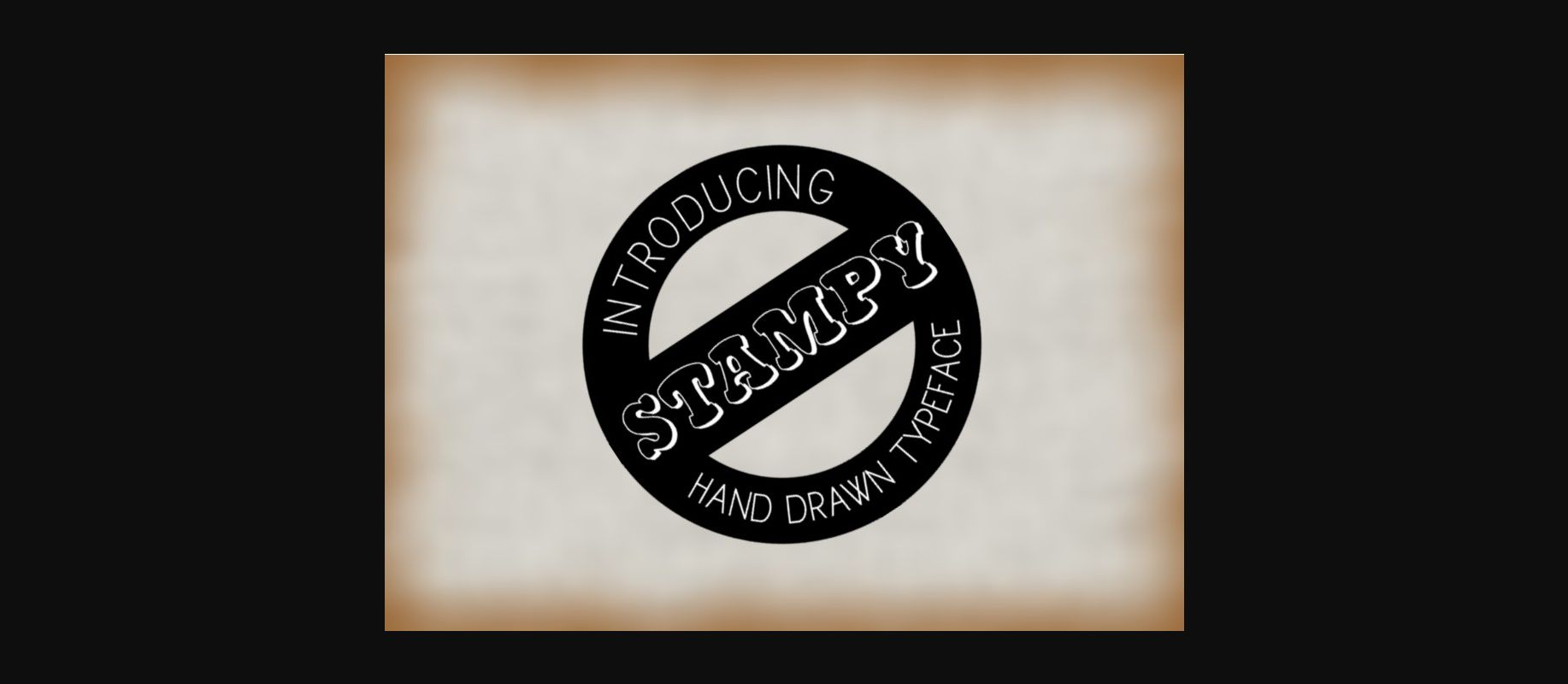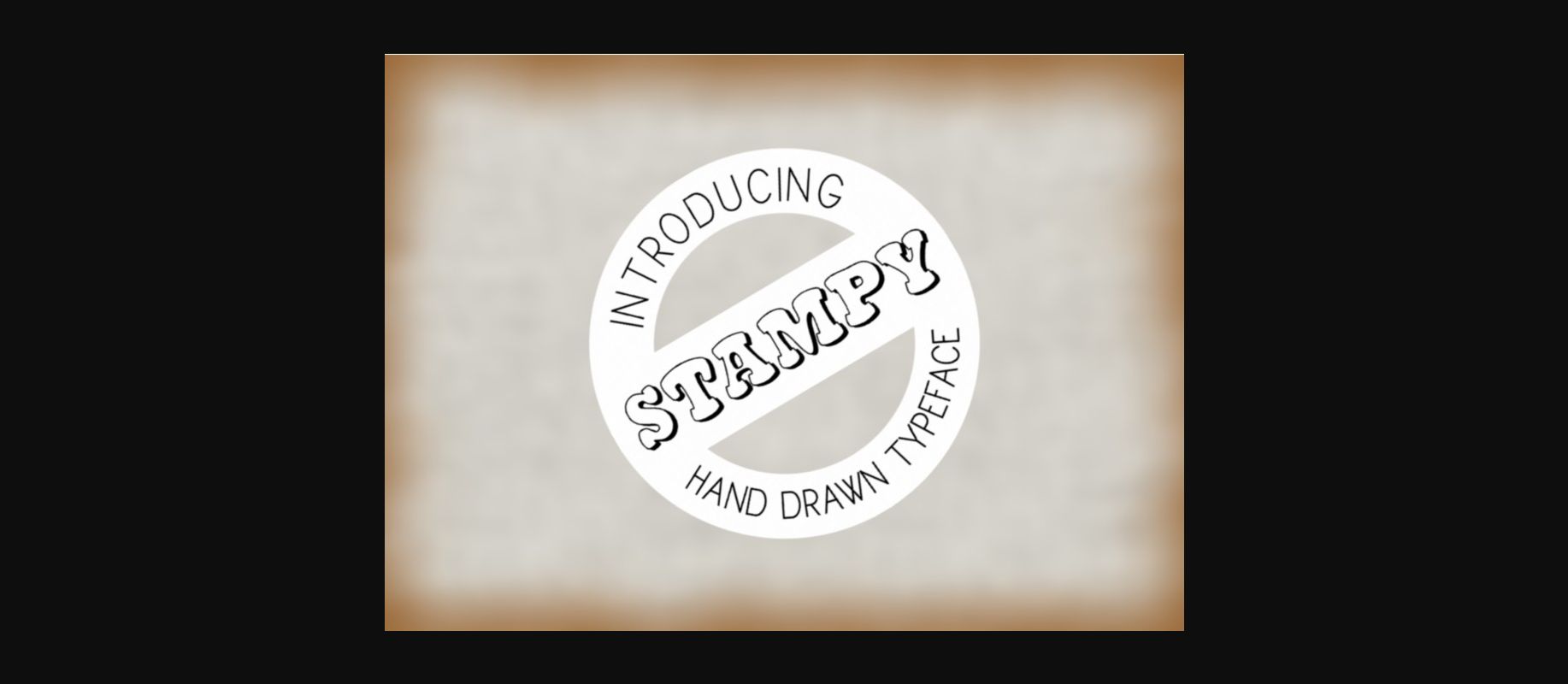
HomeDecorative FontsStampy Font Decorative Fonts Stampy Font FacebookXPinterestWhatsApp 1 of 2 About Stampy Font Stampy will make your text look like it has been stamped with a stencil. DOWNLOAD NOW People also explored Homesick Font Bright Summer Font Bukan Belina Monogram Font Melody Font Before Christmas Font Camelia Font Home at Sunday Font Hibachi Font 272 0 TagsStampyStampy Font Previous articleBinuang FontNext articleChamylle Font LEAVE A REPLY Cancel reply Comment: Please enter your comment! Name:* Please enter your name here Email:* You have entered an incorrect email address! Please enter your email address here Website: Save my name, email, and website in this browser for the next time I comment. Personal Use Free BD Alm Personal Use Free Read more about this font BD Spinner Personal Use Free Read more about this font Feather Script Personal Use Free Read more about this font Planning Personal Use Free Read more about this font BLOG Fonts That Capture the Spirit of New York City New York City is more than just a place—it’s an experience, a rhythm, a visual language... Modern Sans-Serif Fonts That Brands Love in 2025 Top 10 Handwritten Fonts That Elevate Your Designs Free vs Paid Fonts: Why Investing in Premium Fonts Is Worth It